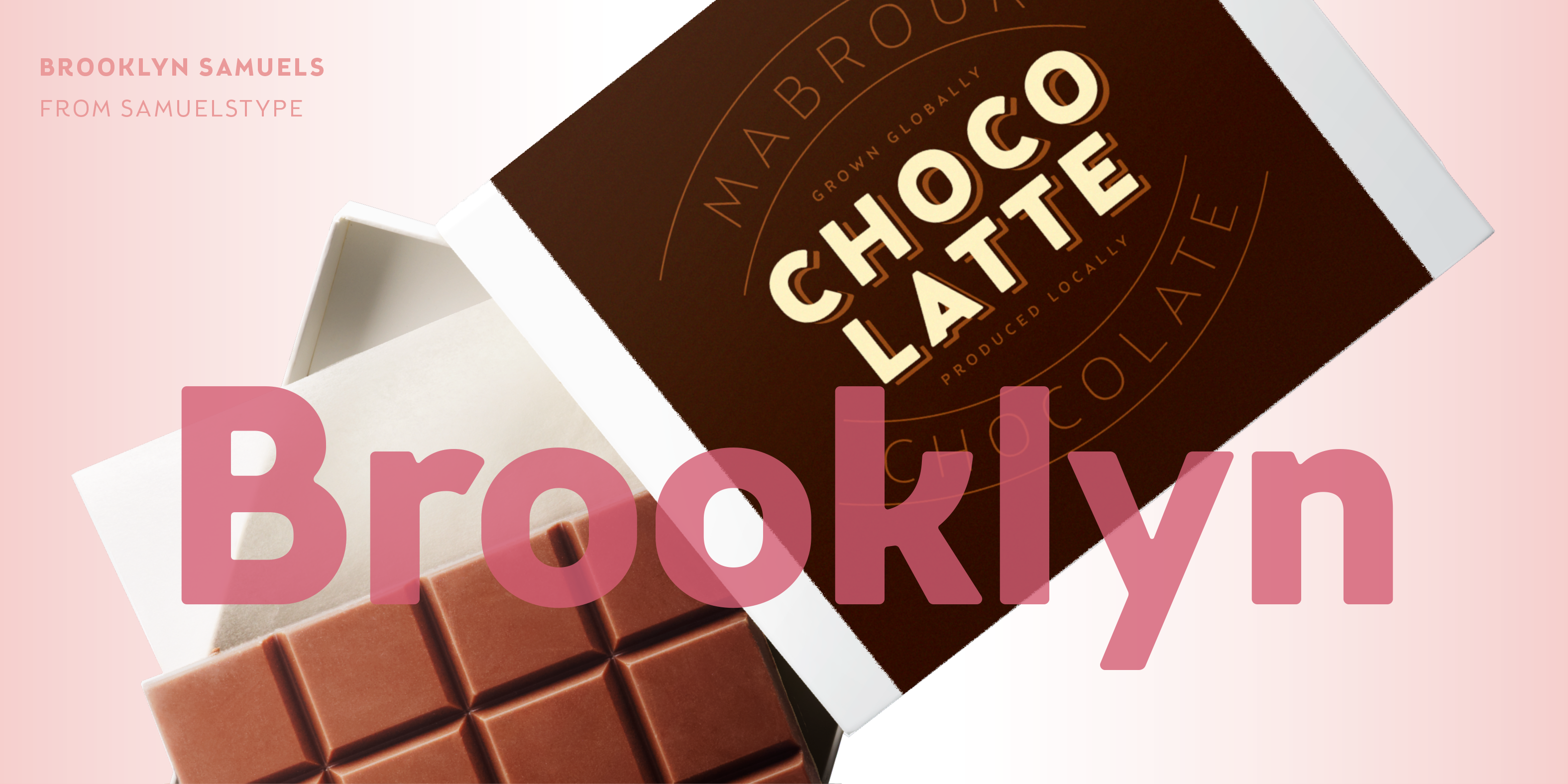
This geometric sans-serif typeface is perfect for headlines, branding, posters, web design, and social media graphics.
The Brooklyn Samuels Font is exciting because its clean, modern design with a touch of humanist warmth offers excellent legibility and a versatile aesthetic for dynamic projects.
Its font family includes 19 styles across five weights—Thin, Light, Medium, Bold, and Fat—in subfamilies No.1, No.2, No.3, No.4, and No.5, providing extensive creative options.
Looking for a font that blends geometric precision with versatile style? Brooklyn Samuels Font Free Download is an ideal choice for designers seeking a modern sans-serif typeface. Designed by Hans Samuelson and published by Samuelstype in 2013, this font family is built on geometric shapes, primarily intended for headline use but also highly legible in smaller sizes. With 19 styles, it’s perfect for both digital and print projects, from branding to editorial layouts, making it a favorite among graphic designers and marketers.
The Brooklyn Samuels Font excels in applications requiring bold, clean typography. It’s a top choice for headlines in magazines, posters, or websites, where its geometric structure ensures impact. Branding projects, such as logos for startups or retail, benefit from its modern yet approachable look. Web designers use it for headers and UI elements, leveraging @font-face support for seamless integration. Social media creators rely on its bold weights for Instagram posts, TikTok overlays, or YouTube thumbnails, boosting engagement. Its versatility also suits packaging and signage, adding a contemporary edge.
What makes the Brooklyn Samuels Font Free Download so compelling is its balance of geometric clarity and humanist warmth. Stylistic sets provide text-friendly alternates for select letters, enhancing readability. With support for 75 Latin-based languages, including Spanish, German, and French, it’s ideal for global projects. OpenType features like ligatures and alternates offer creative flexibility in tools like Adobe Illustrator or InDesign, making it perfect for custom typography. Available in OTF and TTF formats, it ensures compatibility across platforms.
The Brooklyn Samuels Font family includes subfamilies No.1 to No.5, each with weights like Thin, Light, Medium, Bold, and Fat. For example, Brooklyn Samuels No5 Bold is ideal for striking headlines, while No1 Thin suits subtle accents.